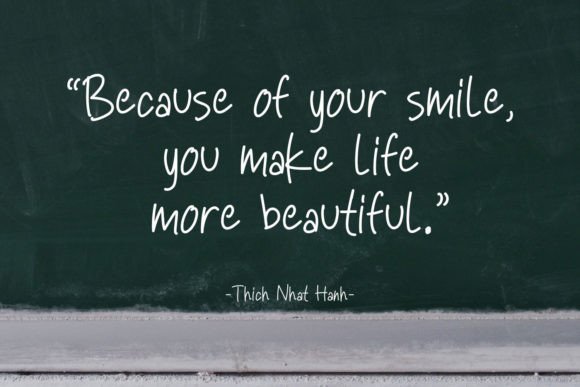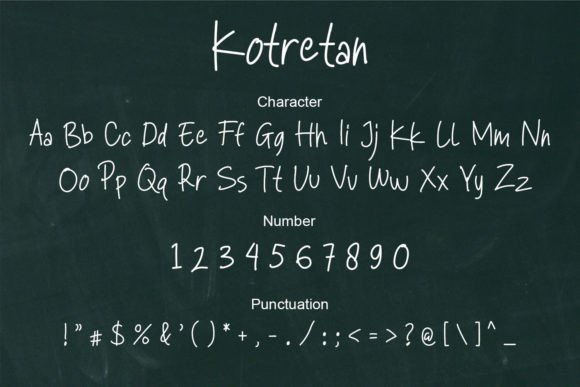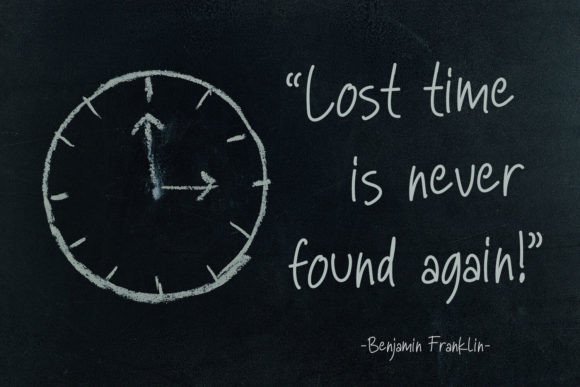
Introduction to Kotretan Font
As a designer, there’s nothing quite like the thrill of stumbling upon a font that captures the essence of your creative vision. It’s the spark that sets your imagination ablaze, propelling you to craft something truly special. For me, that moment came when I discovered the Kotretan Font – a beautiful, handwritten font that exudes a warm, friendly charm.
With its lightweight structure and charming slant, Kotretan Font is an absolute delight to work with. Whether you’re designing a poster, banner, or social media graphic, this versatile font is the perfect companion to elevate your creative project to the next level. Its transparent background and high-quality design make it an invaluable resource for designers, and the best part? It’s available for free download, making it accessible to creatives of all levels.
So, what makes Kotretan Font so special? Let’s dive in and explore the world of this captivating calligraphic font, and discover why it’s a valuable addition to any designer’s toolkit.
Key Features of Kotretan Font
- High-quality design: The Kotretan Font is designed with precision and care, ensuring a crisp and clear appearance in any creative project.
- Transparent background: This font features a transparent background, making it ideal for use on images or graphics with complex backgrounds.
- Design resource: This font is perfect for designers working on creative projects, including logos, posters, and other visual materials.
- Unique characteristics: The Kotretan Font features a unique, hand-drawn style that adds a touch of personality to any design project.
Honest Review: Kotretan Font
I recently had the opportunity to work with the Kotretan Font, and I must say it’s been a game-changer for my creative project. The high quality of this font has truly taken my designs to the next level.
One of the standout features of the Kotretan Font is its transparent background, which makes it incredibly versatile. I’ve been able to use it for a wide range of design projects, from logos to social media graphics.
- ✨ Transparent background makes it easy to use with any design
- ⚠️ Limited character set, which may not be suitable for longer text-based projects
- ⚠️ Not as widely supported as some other fonts, which can cause compatibility issues
Overall, I’m thoroughly impressed with the Kotretan Font. Its unique design and transparent background make it a valuable addition to any designer’s toolkit. While it may have a few limitations, I believe the benefits far outweigh the drawbacks.
Tips for Getting the Most Out of Kotretan Font
When using Kotretan Font, consider using it on a transparent background to make your design stand out. You can also experiment with different font sizes and colors to add depth and visual interest to your design.
Kotretan Font is a high-quality design resource that can be used in a variety of creative projects, including logos, business cards, and social media graphics. Its unique design and transparent background make it a great choice for designers looking to add a touch of elegance to their designs.